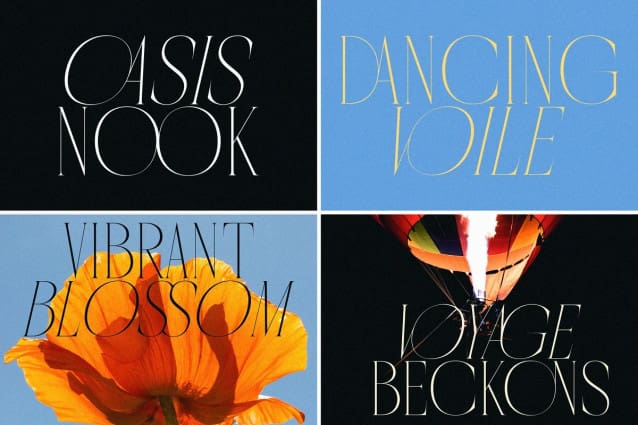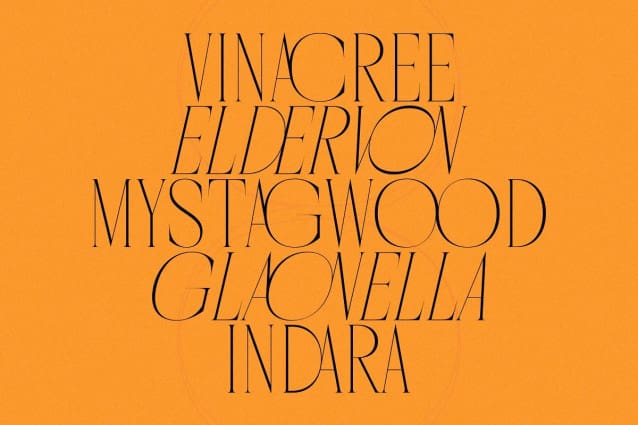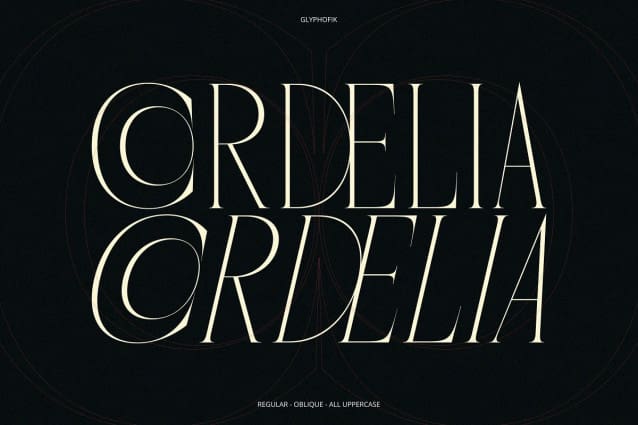
Cordelia Font
Cordelia Font is an elegant display serif with diverse non-overlapping ligatures. It’s suitable for logos, short quotes or other designs with an elegant feel.